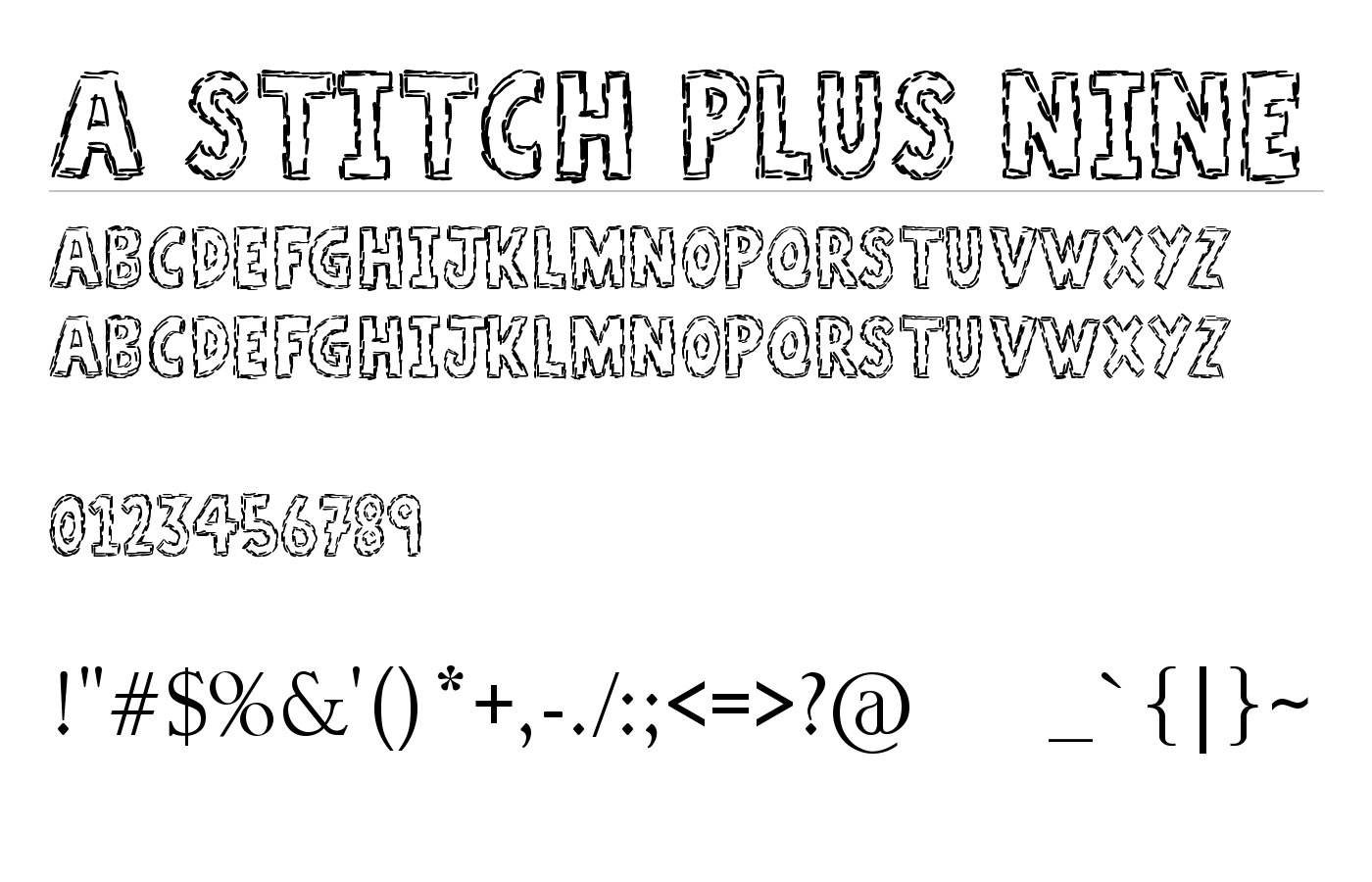
A Stitch Plus Nine is a playful, hand-crafted sans serif font featuring a stitched, textured outline that gives it a lively, homemade feel. Its bold, slightly condensed letterforms with uneven, sketch-like strokes create a casual and approachable vibe, making it ideal for creative projects, children’s designs, and whimsical branding. This font shines in headlines, logos, and packaging where an informal, crafty look is desired.
A Stitch Plus Nine Font
About A Stitch Plus Nine Font